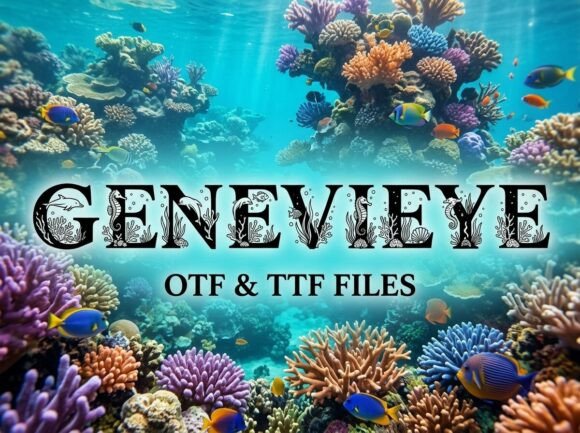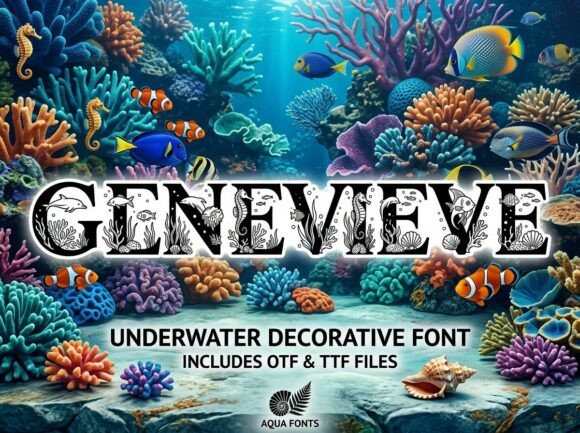
The Ultimate Display Font: Genevieve Font Review and Guide
I’ll never forget the moment I stumbled upon a font that completely transformed my design project. I was working on a branding campaign for a luxury client, and I was struggling to find the perfect font that would convey their high-end message. That’s when I discovered Genevieve Font, a stunning decorative display font that instantly caught my attention. In this article, I’ll share my honest review of Genevieve Font, provide a practical guide on how to use it, and explore similar fonts that might suit your creative needs.
Genevieve Font: The First Impression
Genevieve Font is a decorative display font designed to be the center of attention. With its unique artistic elements and strong visual personality, this font is perfect for creators who want to break away from the ordinary. Its versatility makes it suitable for bold headlines, artistic logos, and creative packaging, while maintaining a professional and polished finish.
What I Love About Genevieve Font
- ✨ Unique artistic elements that add a touch of elegance to any design
- ✅ Strong visual personality that commands attention
- 💼 Versatile enough for various design applications, from headlines to logos and packaging
- 🎨 Professional and polished finish that elevates any design
⚠️ Before purchasing Genevieve Font, it’s essential to note that it’s an ALL-CAPS (Uppercase Only) display typeface. This means it doesn’t include lowercase letters, making it specifically designed for high-impact headlines, logos, and decorative initials where every letter is a work of art. Some users might find this limitation restrictive, but I believe it’s a deliberate design choice that adds to the font’s unique charm.
The Story Behind Genevieve Font
Genevieve Font was inspired by the works of Art Nouveau artists, who sought to break free from traditional design conventions. The font’s creator aimed to craft a unique and artistic display font that would add a touch of elegance to any design. With its strong visual personality and versatility, Genevieve Font has become a popular choice among designers and crafters.
| Is Genevieve Font suitable for body text? | No, Genevieve Font is a display font designed for headlines, logos, and decorative initials. It’s not suitable for body text due to its ALL-CAPS limitation and artistic nature. |
| Does Genevieve Font include stylistic alternates or glyphs? | Yes, Genevieve Font features OpenType features, glyphs, and stylistic alternates that allow you to add visual interest and variety to your design. |